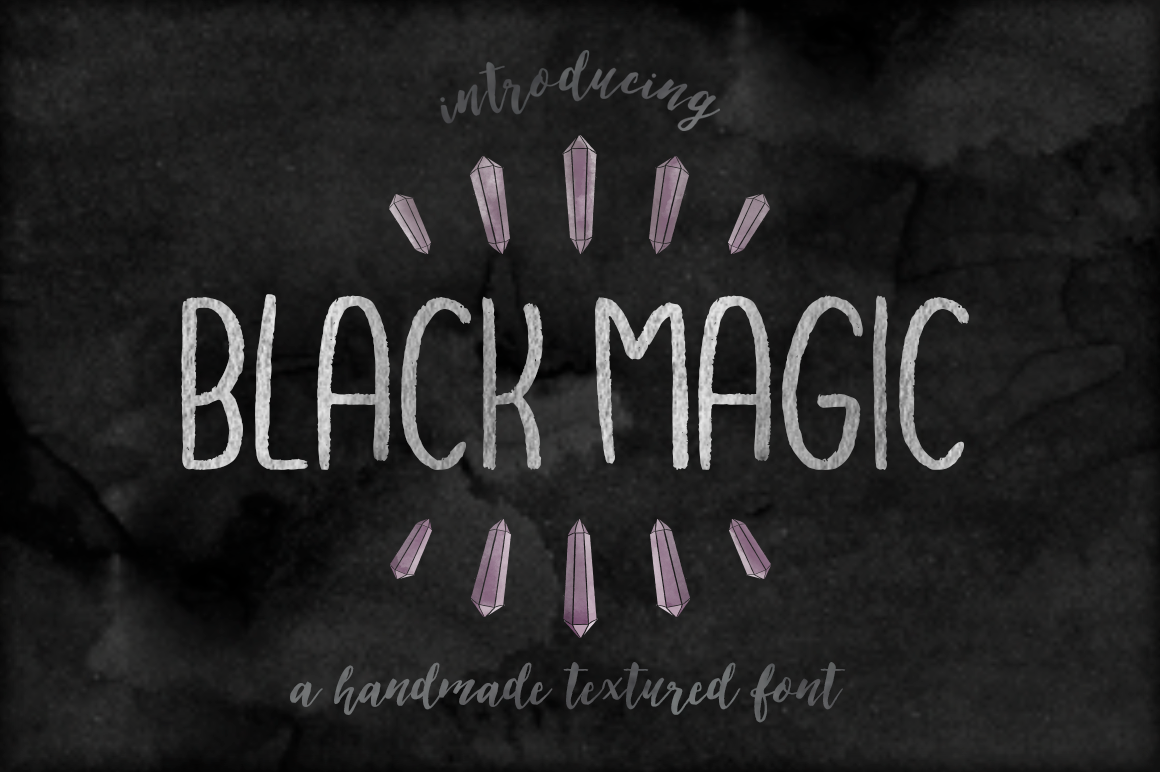
Black Magic Handmade Font
Black Magic is an uppercase rustic, textured typeface. It's perfect for branding, quotes, cards and so much more! It has numbers, punctuation and international characters. I also included a few illustrations as a bonus.